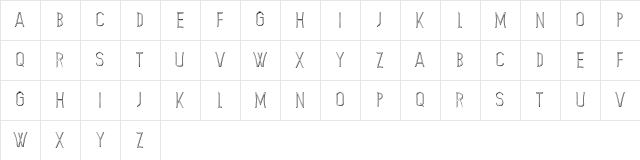
Sence Regular Free Font
Sence Regular
Design Context for Sence
Sence is a composed and adaptable typeface that performs quietly and consistently across a wide range of design contexts.